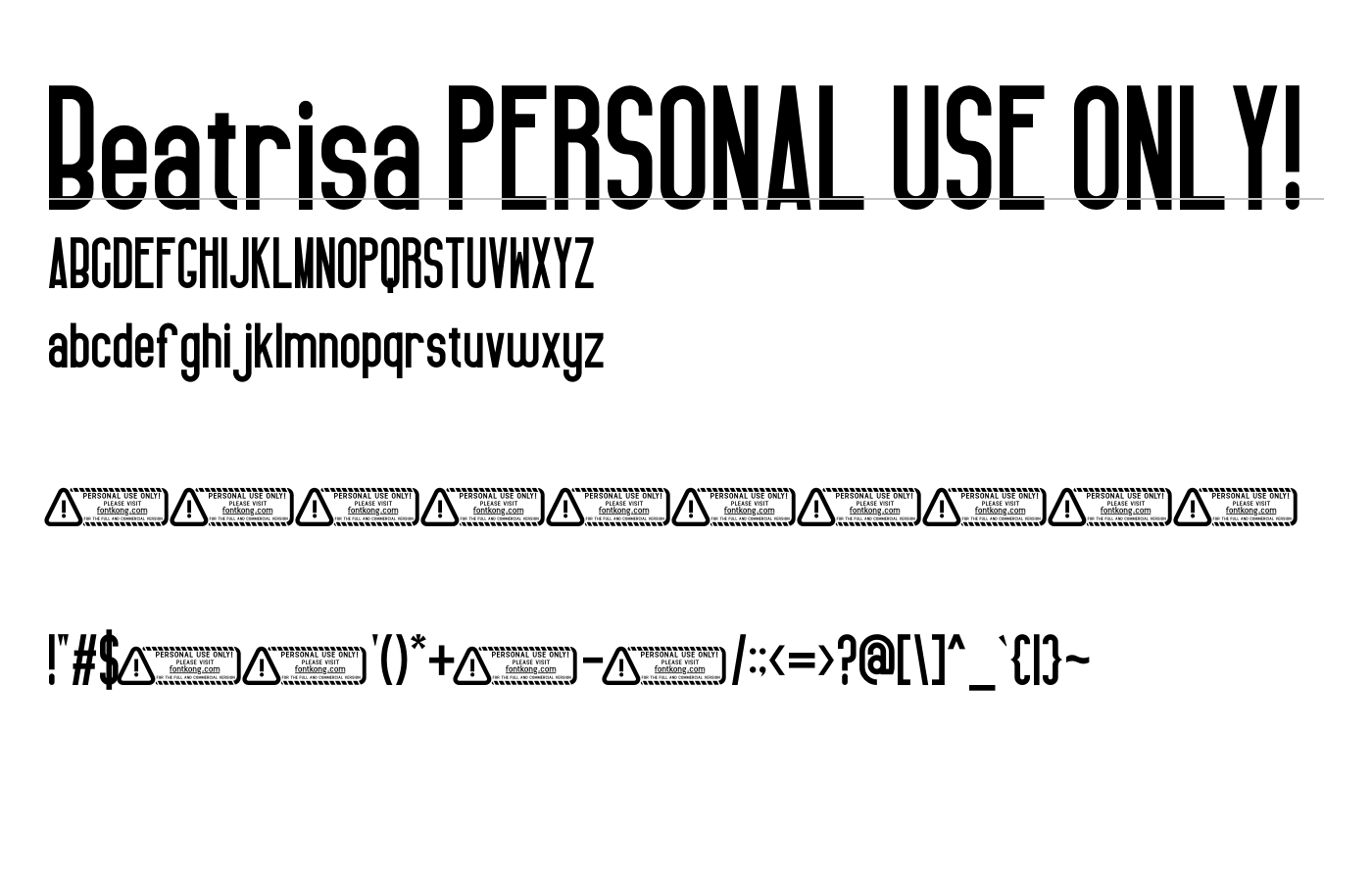
Beatrisa is a tall, condensed sans serif font with a clean and modern look. Its narrow letterforms and consistent stroke weight give it a sleek, elegant feel, making it ideal for striking headlines and stylish branding where space is limited. This font works well for fashion, editorial, and contemporary design projects seeking a bold yet refined appearance.
Beatrisa PERSONAL USE ONLY! Font
About Beatrisa PERSONAL USE ONLY! Font